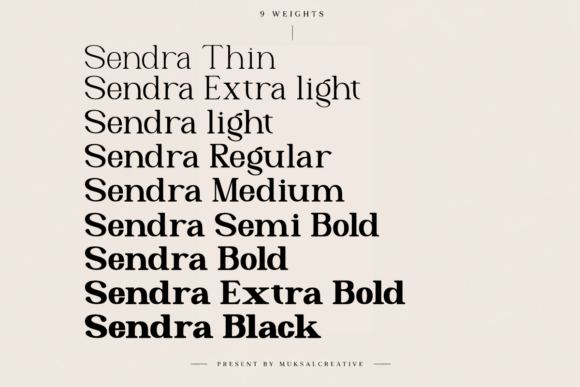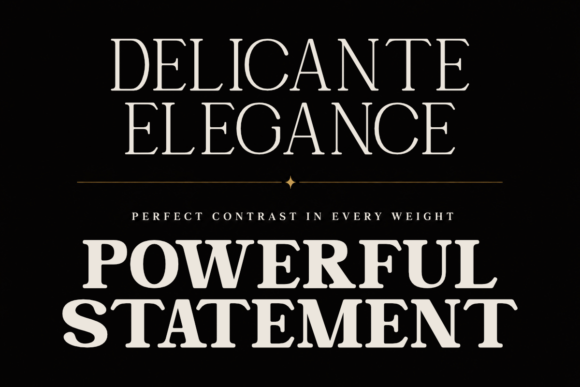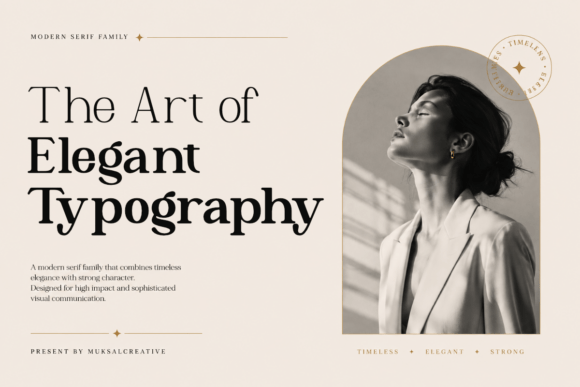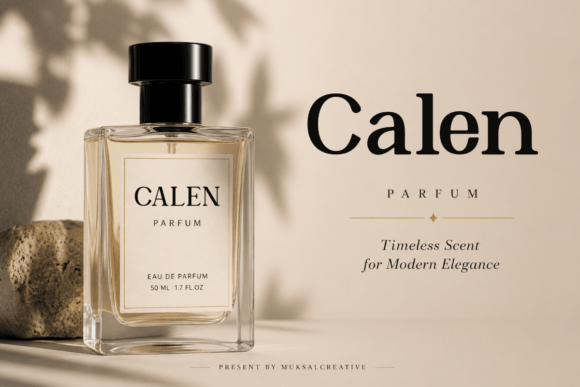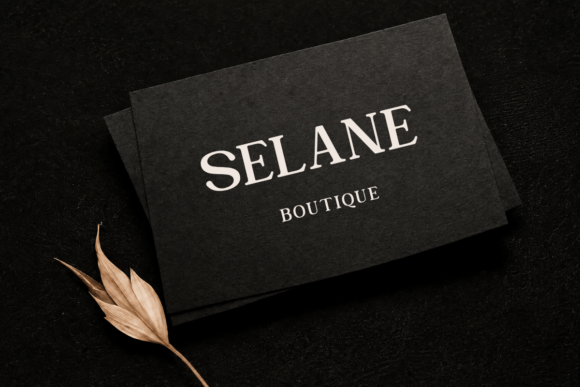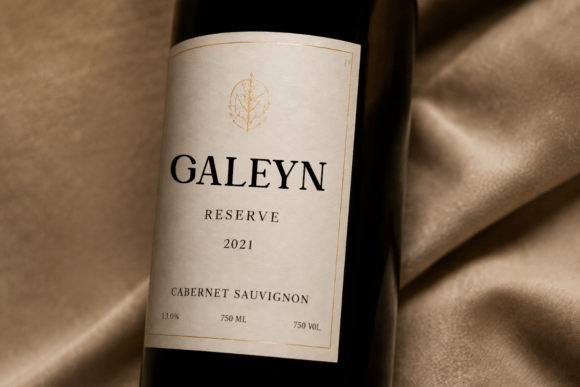
Introduction to Sendra Font
Sendra is a refined modern serif family designed to bring timeless elegance and strong visual character into one sophisticated type system.
Inspired by luxury editorials, high-end branding, and contemporary fashion typography, Sendra combines delicate thin styles with bold dramatic blacks while maintaining harmony across every weight Crafted with balanced proportions, smooth curves, and stylish serif details, Sendra delivers a graceful appearance for both minimalist layouts and expressive headline compositions.
Key Features of Sendra Font